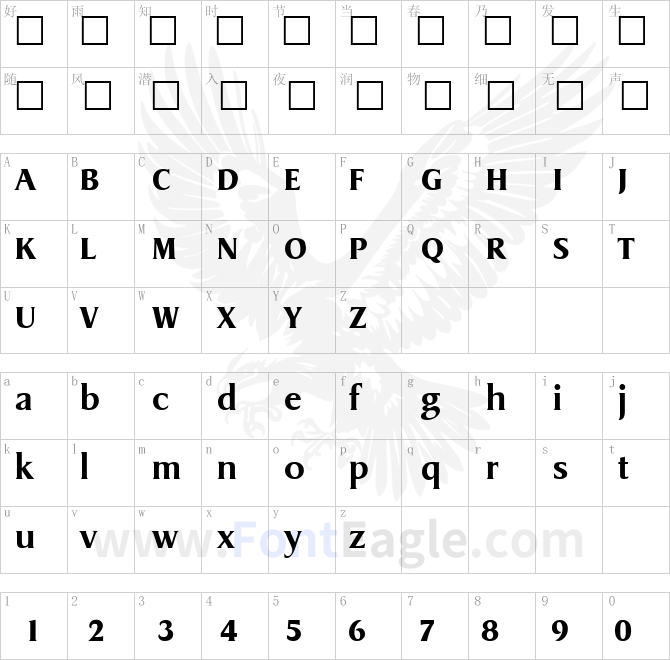
- Font name:Dragon
- Font Subfamily ID:Altsys Fontographer 3.5 Dragon Bold
- Font Full Name:Dragon Bold
- Font Version:Altsys Fontographer 3.5 4/13/93
- Postscript:Dragon-Bold